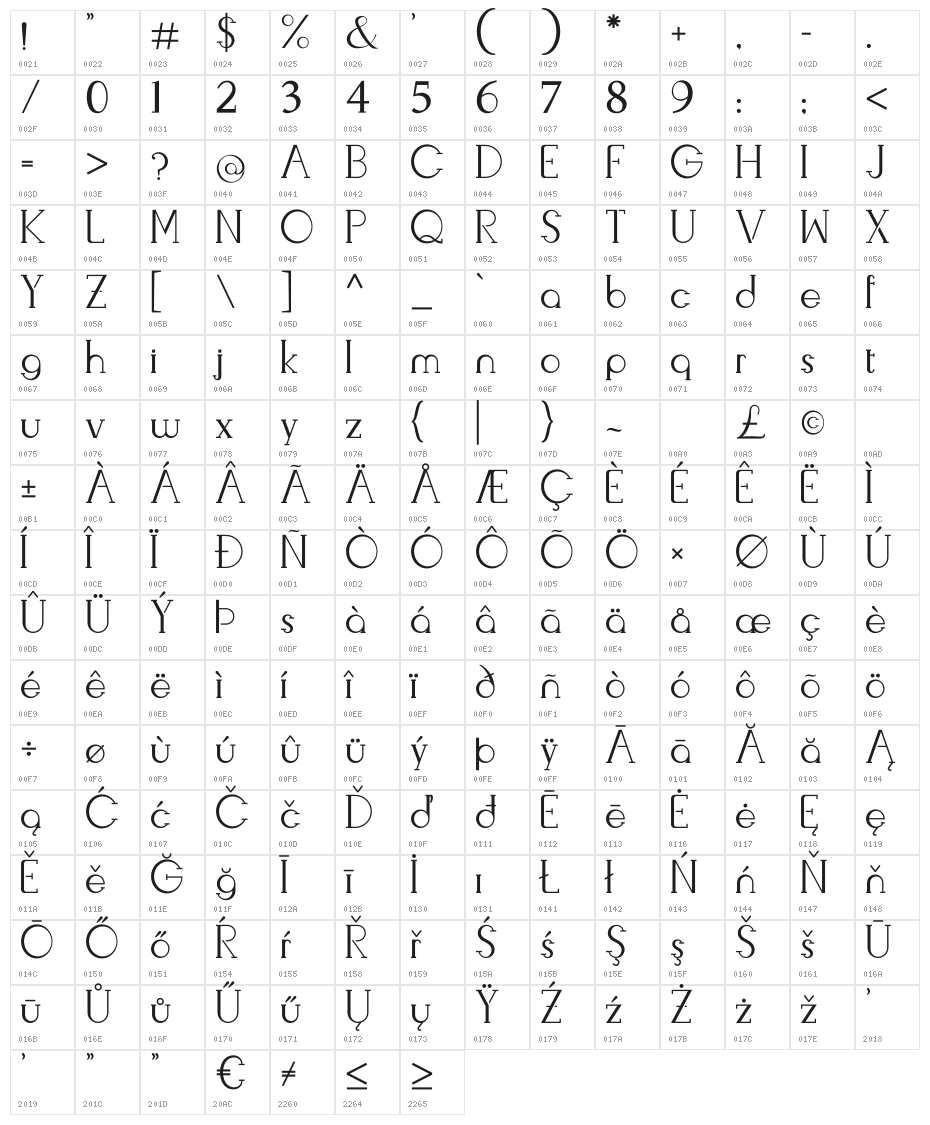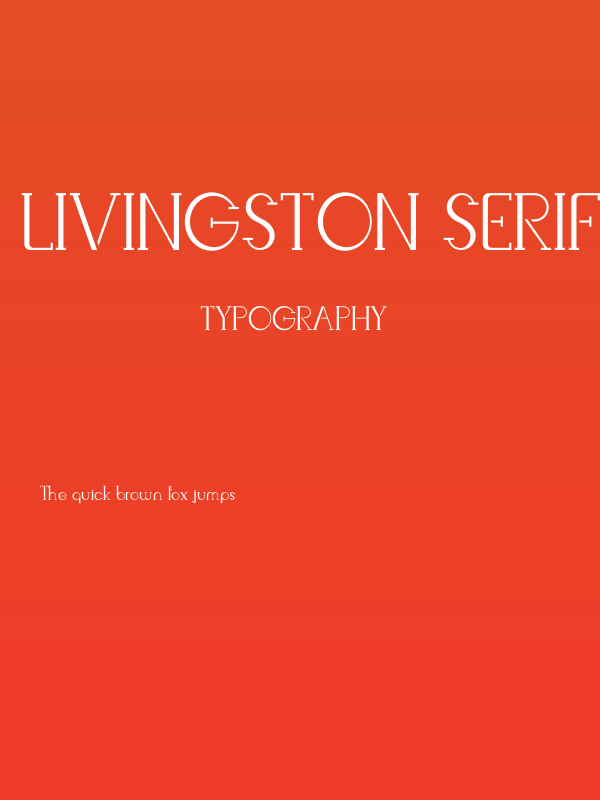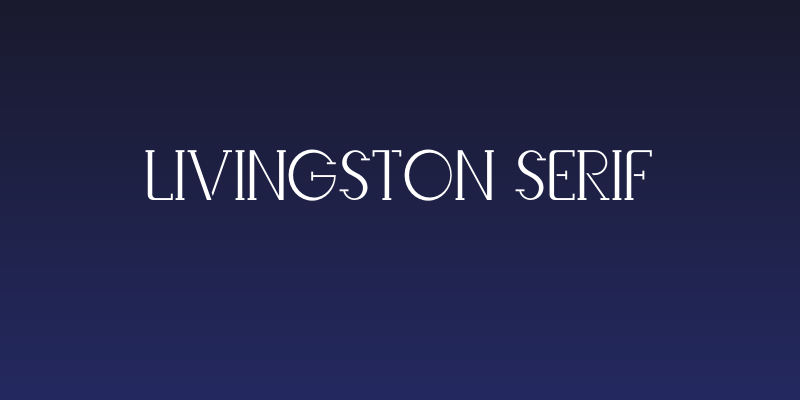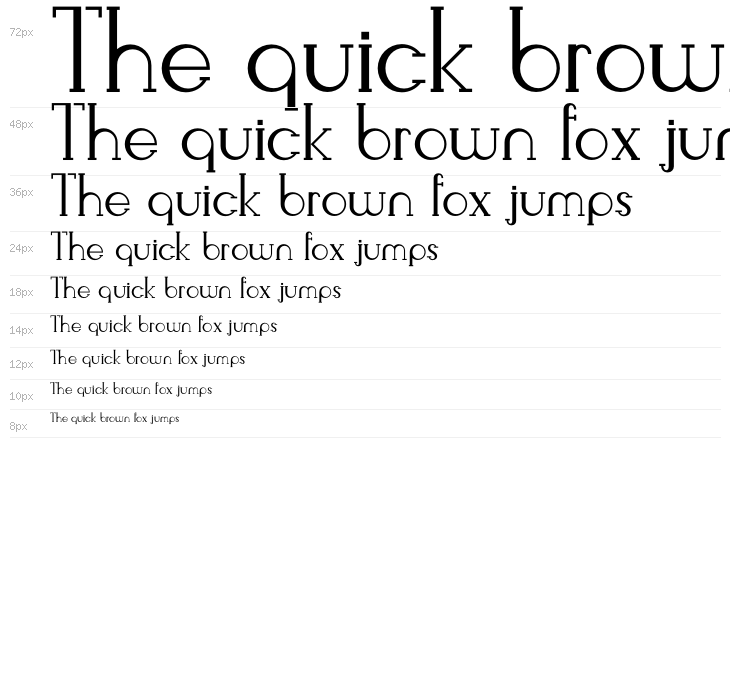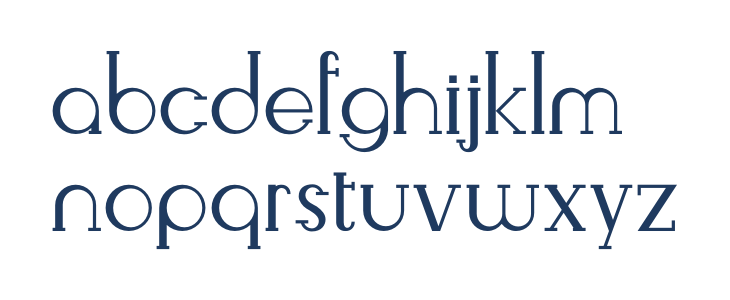
Livingston Serif Font
Livingston Serif Description
This font exhibits a refined and elegant serif style, characterized by its thin, elongated serifs and high contrast between thick and thin strokes. The uppercase letters are tall and stately, while the lowercase letters maintain a balanced and harmonious appearance. The numerals are distinct and clear, with a classic touch that complements the overall sophisticated aesthetic. Special characters are designed with the same attention to detail, ensuring consistency throughout the typeface. This font is ideal for projects that require a touch of elegance and formality.
| Use Case | Headlines, Logos, Editorial design |
| Proposed Projects | Ideal for luxury branding, editorial design, wedding invitations, and high-end product packaging. |